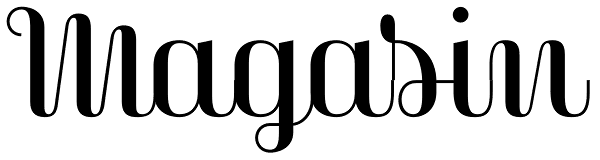
Magasin
Magasin is a high contrast display typeface inspired by the pointed pen calligraphy, yet with a retro-chic twist. It combines a sense of script with geometric and slightly condensed structure resulting in idiosyncratic curves softly connecting the...